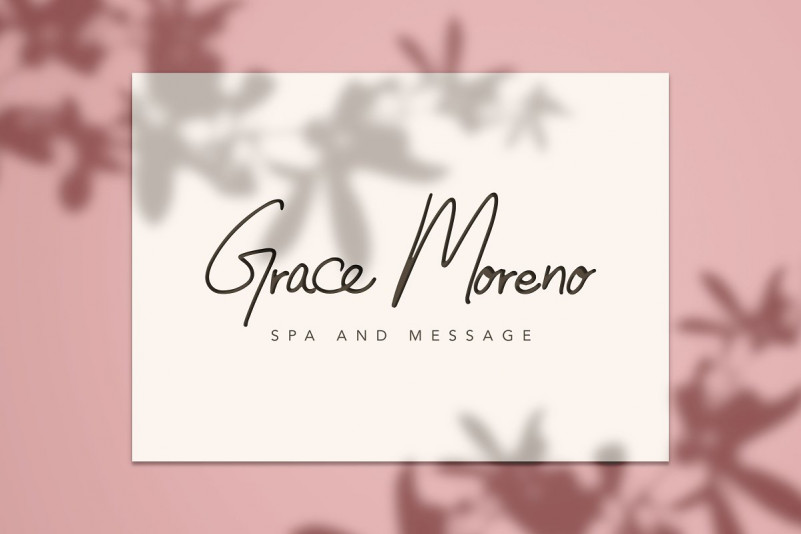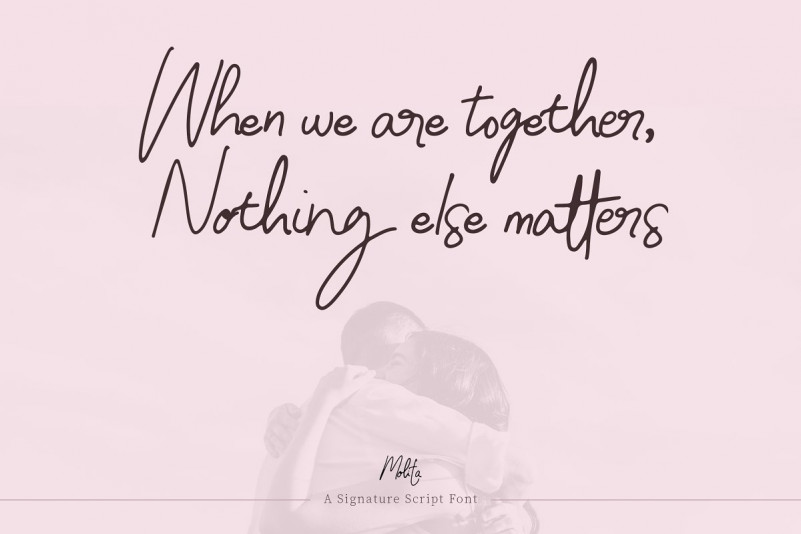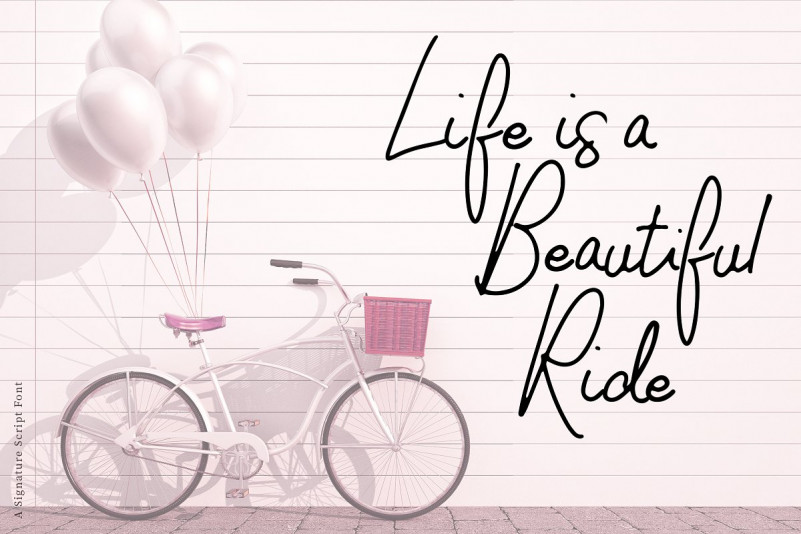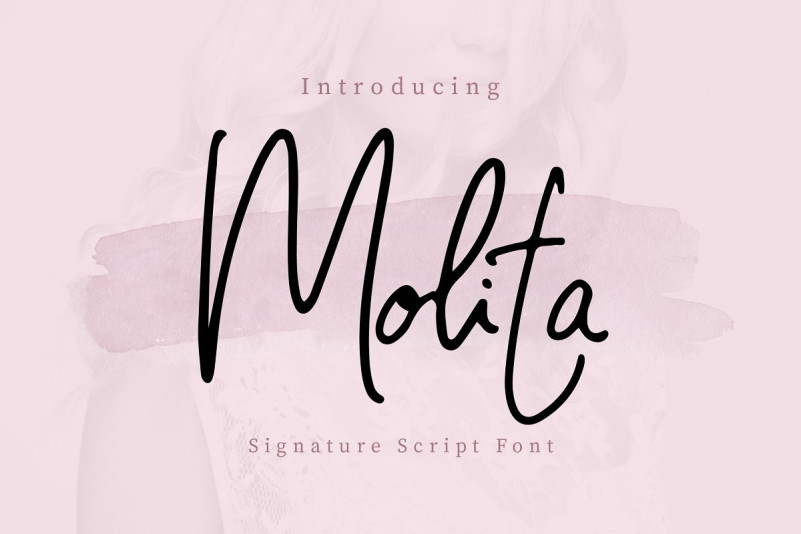
Molita Signature Font is a font with a continuous handwritten script style. This font is perfect for both professional and branding needs of a product. It is design and shared by peterdraw. A perfect signature font with an elegant feel. Molita Signature is perfect for branding projects such as logo, presentation, and product packaging. It’s also perfect for wedding and fashion themed – or a stylish text overlay to any background image.